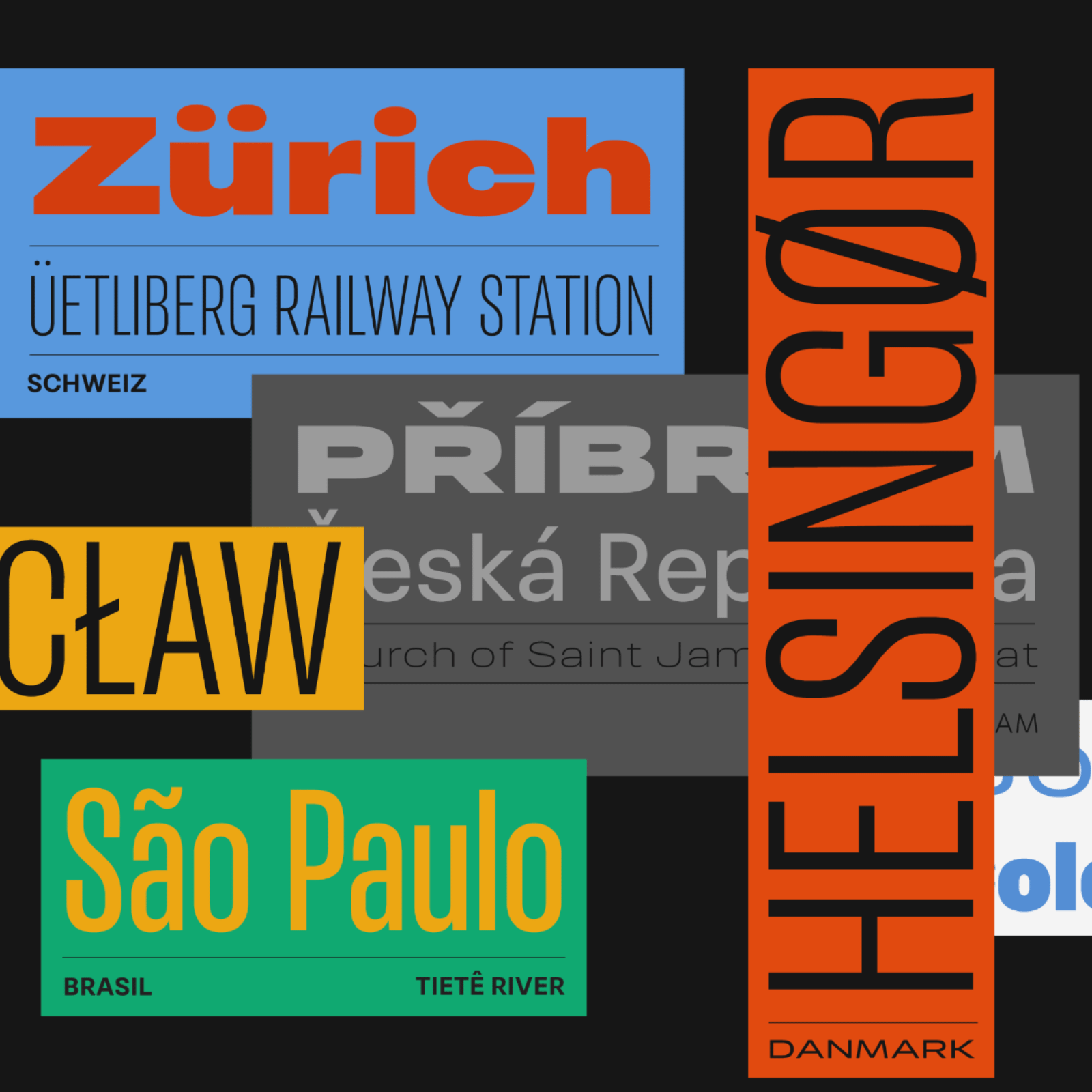
New Type Foundry: RESET TYPE STUDIO crafts dynamic variable fonts
Reset Type Studio, a Uruguayan type foundry, crafts dynamic variable fonts with a focus on collaboration and experimentation. Explore their website for playful typefaces, interactive testers, and a passionate community.
Reset Type Studio was born after the pandemic, inspired by the need for human connections and teamwork, rooted in the joy of making type, harnessing the profound value of interpersonal relationships in the creative process. With over a decade in typographic design Fernando Díaz partnered with Matías Di Iorio, a recent graduate in Type Design Master from FADU-UBA, to pursue full-time type design. The type foundry studio represents a fusion of experience and talent, their collaboration is characterized by shared goals and a dynamic energy that shapes their approach to type design.
The team was soon joined by Avril Ponce de León, a promising student who designed the typeface "Silvestre" during the pandemic. Recognizing her talent, Fernando and Matías invited her to complete her work under their mentorship. Avril, now an integral part of the team, infuses their projects with her exceptional quality and innovative vision.
A crucial factor in the studio's development is sharing a workspace with Mundial, a leading graphic design studio in Uruguay. This collaboration allows for valuable feedback and continuous improvement of their typefaces, observing how respected designers use and test them throughout their design process.
Their Character
Reset’s type foundry personality is reflected primarily in their website, showcasing not just the typographic catalog but also various design examples using their fonts. They can be described as energetic and dynamic, combining professionalism with a relaxed, detail-oriented, and empathetic approach. All of their typefaces are variable, with some (like Mazumbá or Silvestre) focusing on experimental use of this technology. Finally, another key word to describe the type foundry's personality might be "Latino", as it represents their context and pride.
Embracing Variable Fonts
Their new type design revolves around variable fonts. In fact, their website is intentionally not set up to publish static typefaces. This approach acts as a manifesto, a strong commitment to the future, aiming to leverage new technologies for diverse projects that address new design challenges. Additionally, their fonts feature an extensive character set, with a minimum of 900 signs required for publication. They also include numerous OpenType features, some pictograms, and post-production work.
They also offer a section for typefaces in development that can be purchased and used before completion. This practice, common among many foundries, stems from the belief that it's beneficial to market a typeface during its lengthy design process, gaining valuable user feedback. This concept, inspired by the video game industry's "Early Access" model, allows users to test and provide feedback during the development stage.
A Type Foundry with a Mission
“The best and most interesting projects are yet to come, we are full of strength, ideas, and typefaces to develop and explore.” – Fernando Díaz
Discover Their Work
Launched in November 2023, their website features an exciting array of 5 complete and 2 in-development variable typefaces. Don't miss the chance to see their collection firsthand, complete with examples and interactive testers on their website.
RST ReactorArtifact from the New Type Foundry: RESET TYPE STUDIO crafts dynamic variable fonts on Abduzeedo
RST Thundra
RST BrotherArtifact from the New Type Foundry: RESET TYPE STUDIO crafts dynamic variable fonts on Abduzeedo
RST TrasandinaArtifact from the New Type Foundry: RESET TYPE STUDIO crafts dynamic variable fonts on Abduzeedo
RST Libertad
RST Mazumbá (Early Access)Artifact from the New Type Foundry: RESET TYPE STUDIO crafts dynamic variable fonts on Abduzeedo
RST Silvestre (Early Access)Artifact from the New Type Foundry: RESET TYPE STUDIO crafts dynamic variable fonts on Abduzeedo